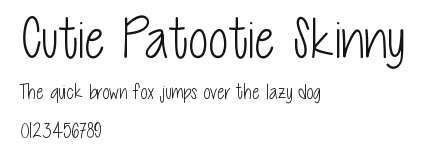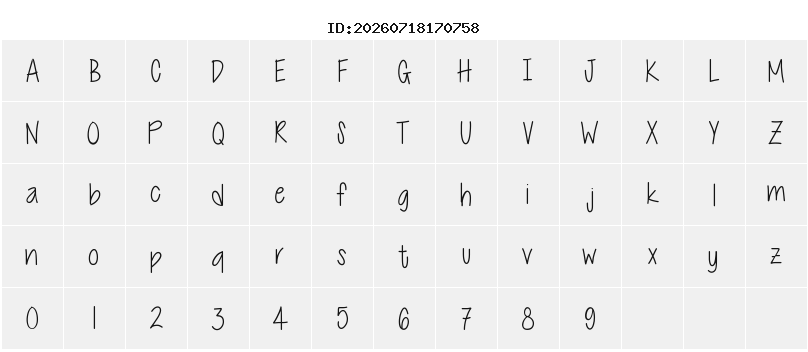
• Font Name: Cutie Patootie Skinny
• Font Style: Skinny
• Font ID: Vanessa Bays: Cutie Patootie Skinny
• Full Font Name: Cutie Patootie Skinny
• PostScript Name: Cutie Patootie Skinny
• Character Count: 200
• Designer: Vanessa Bays
About Cutie Patootie Skinny.ttf
Cutie Patootie Skinny.ttf is a modern, elegant sans-serif font designed for ultimate readability and visual harmony. Perfect for branding, headlines, web design, and print materials.